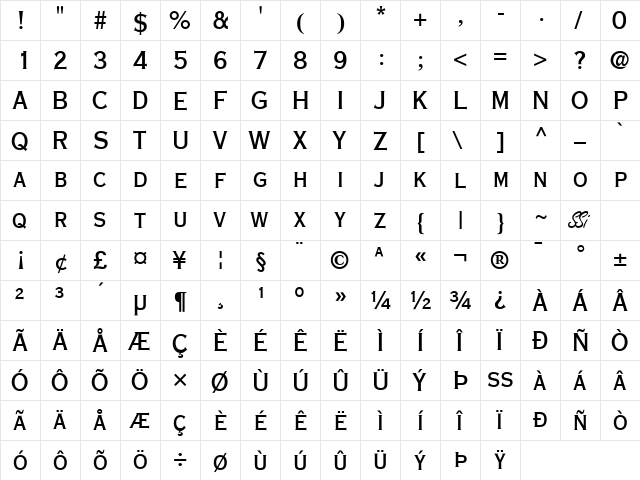
Copperplate Condensed SSi Bold Condensed
Design Context for Copperplate Condensed SSi Typeface
Copperplate Condensed SSi offers clean, dependable letterforms without strong stylistic allegiance, making it a practical choice for designers who need flexibility. Its bold stroke weight gives it real presence on the page. Its narrow stance lets it pack a punch even in space-constrained designs.
Pro Tip: Use Copperplate Condensed SSi in both headline and body roles to test its range before committing to a single application.